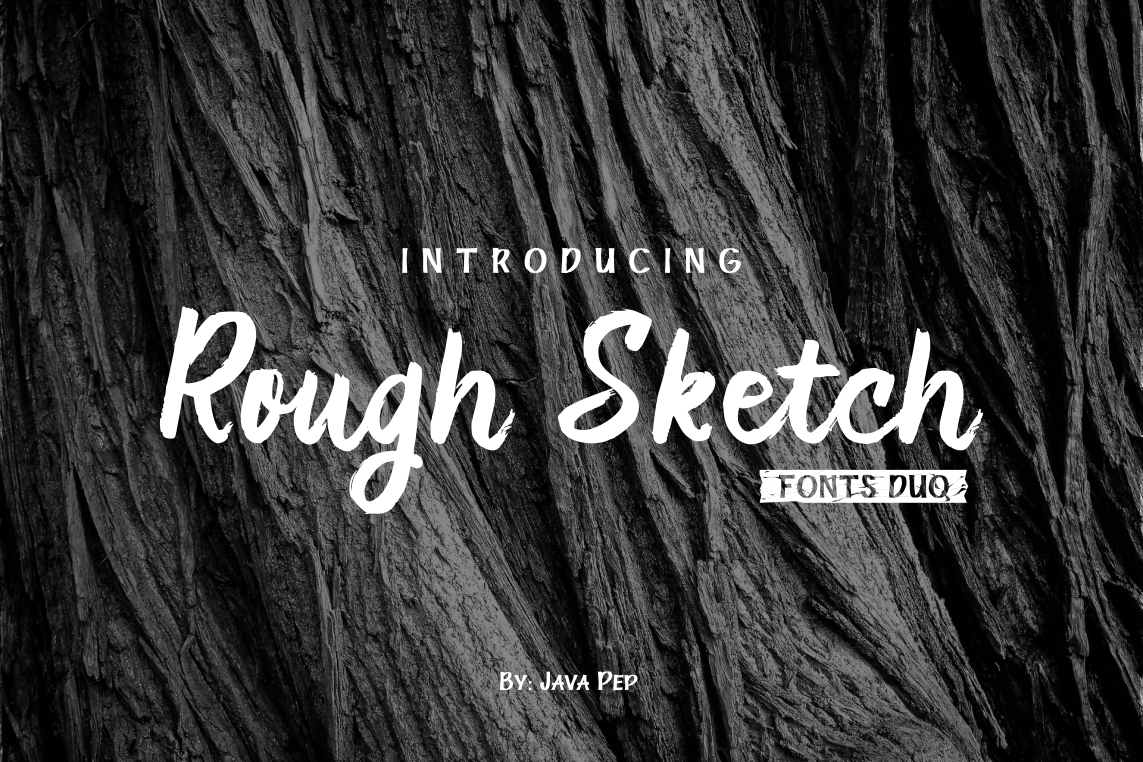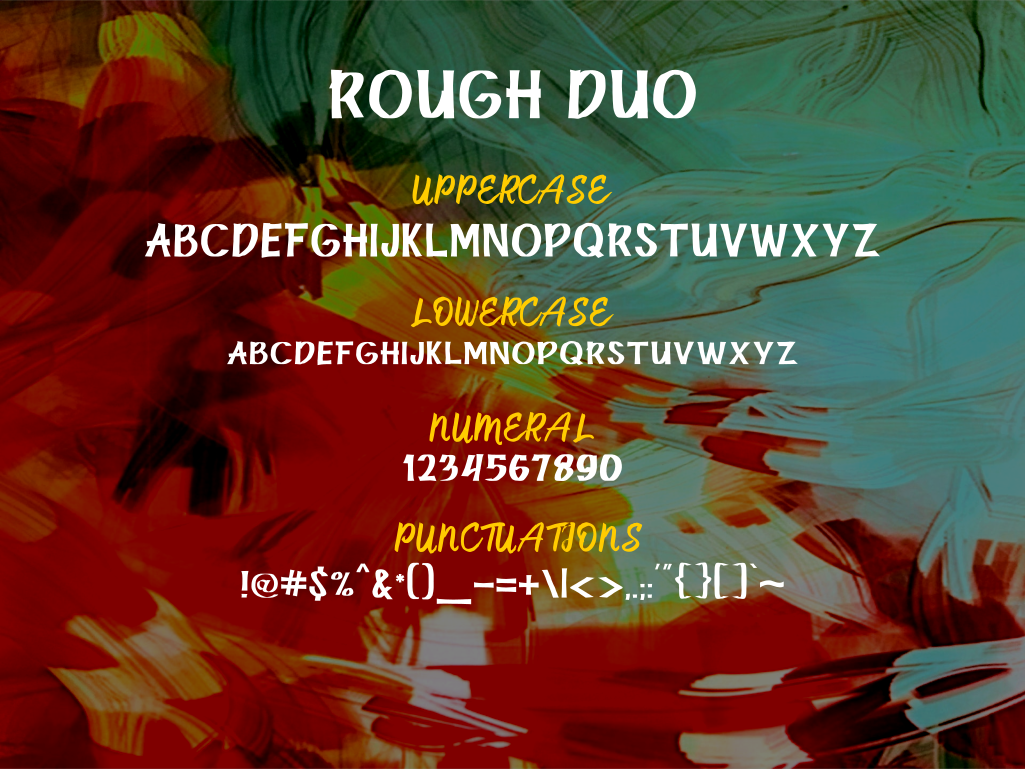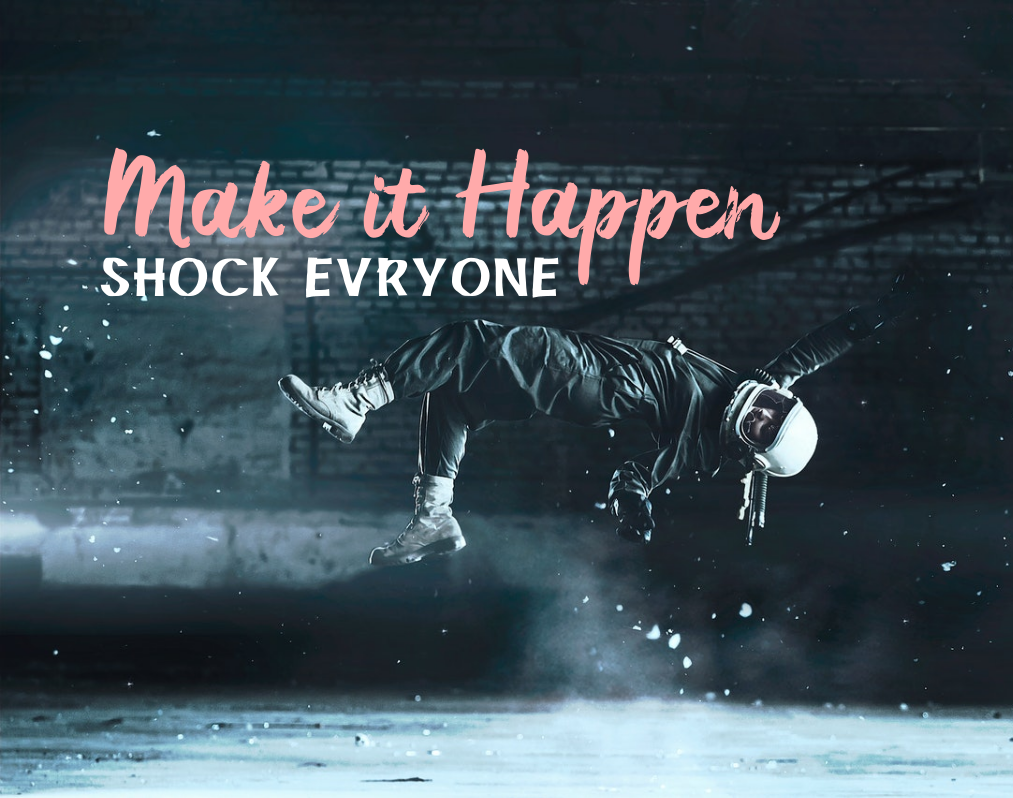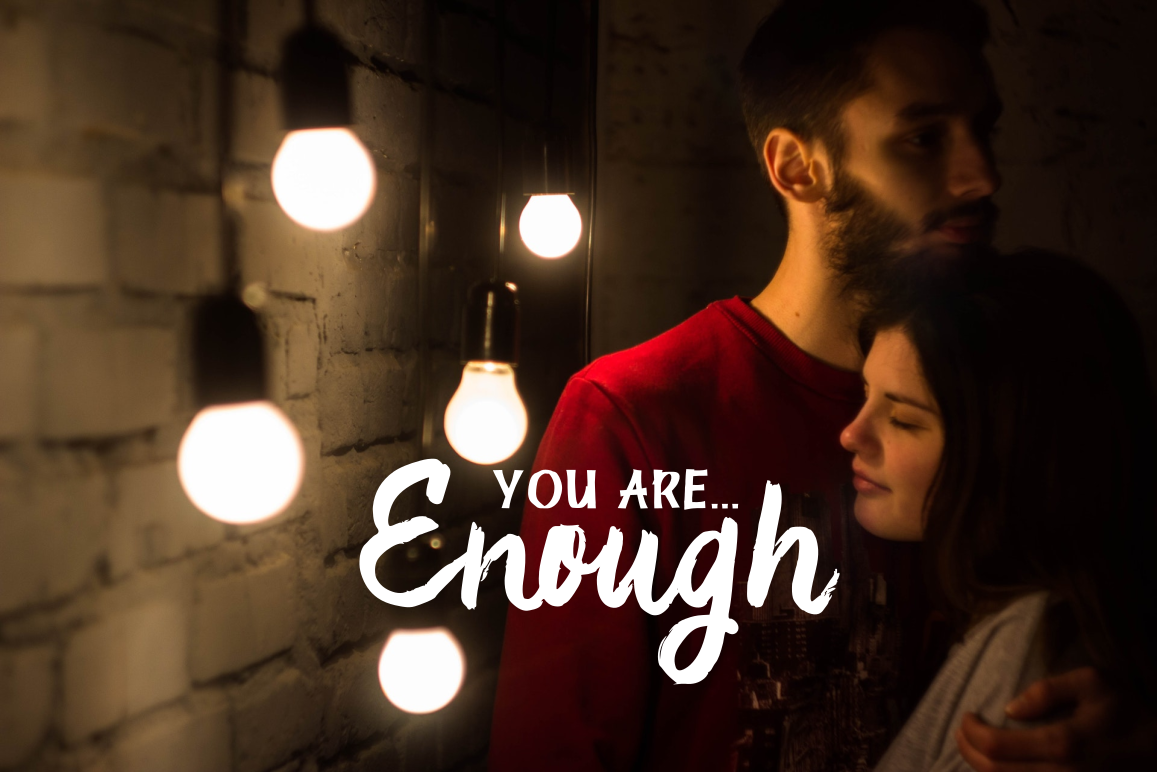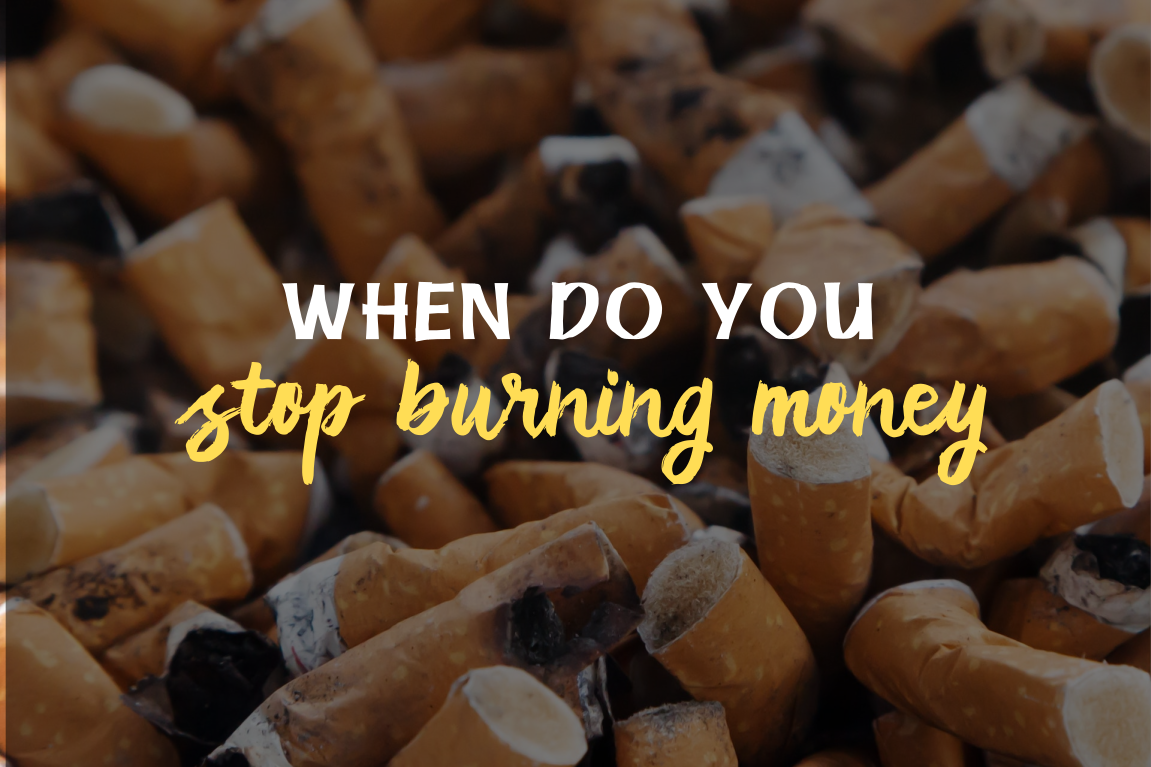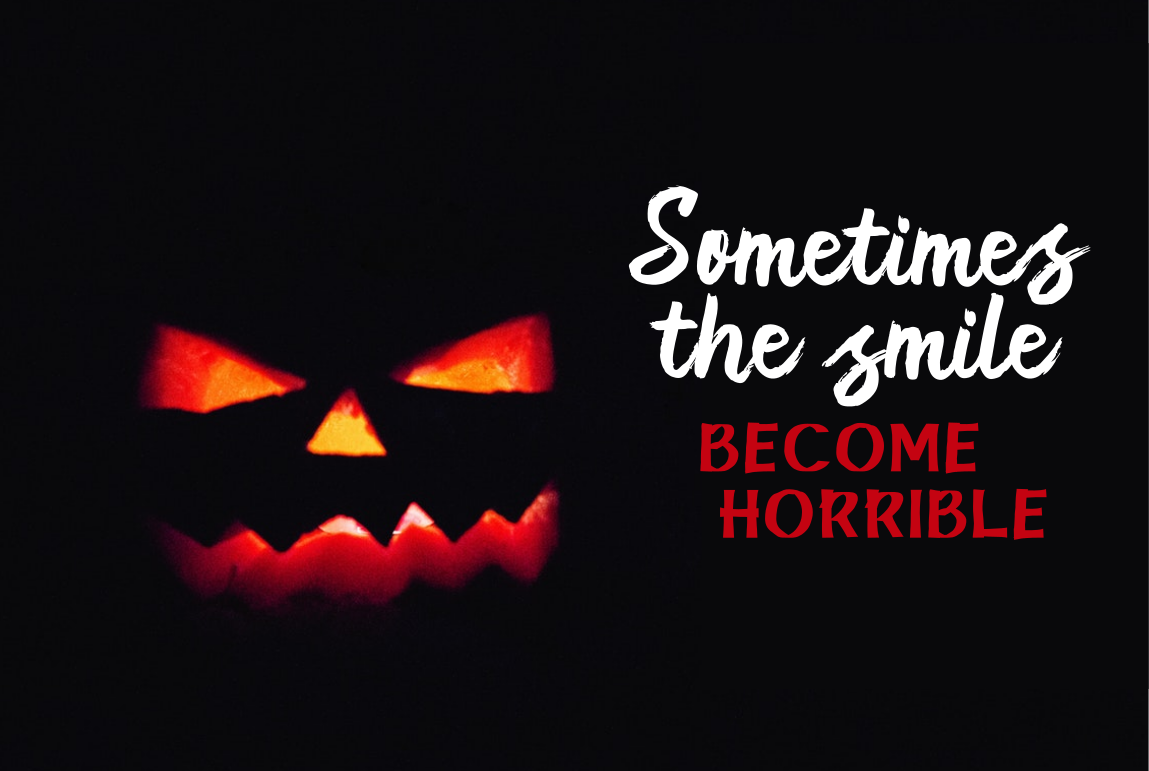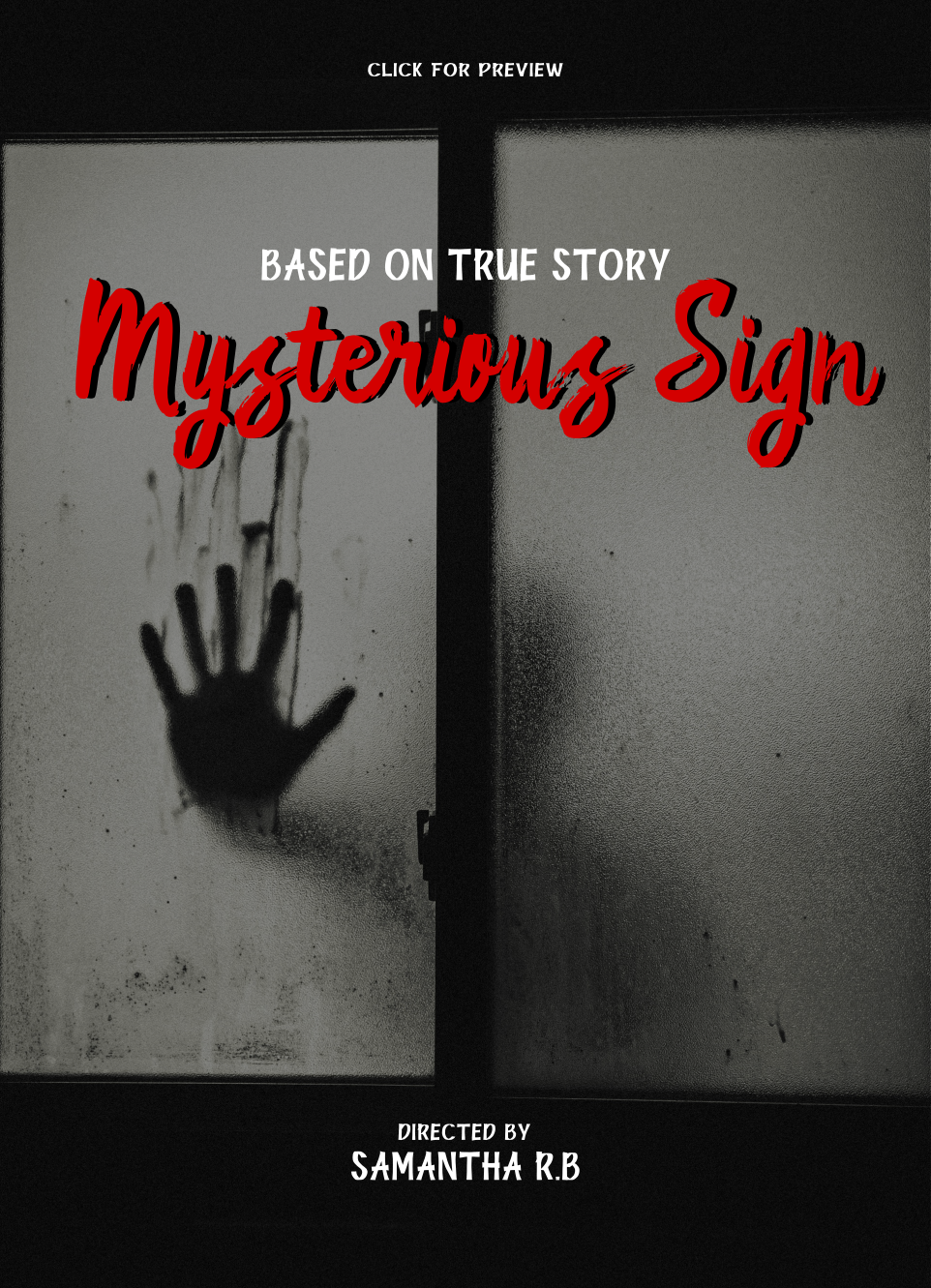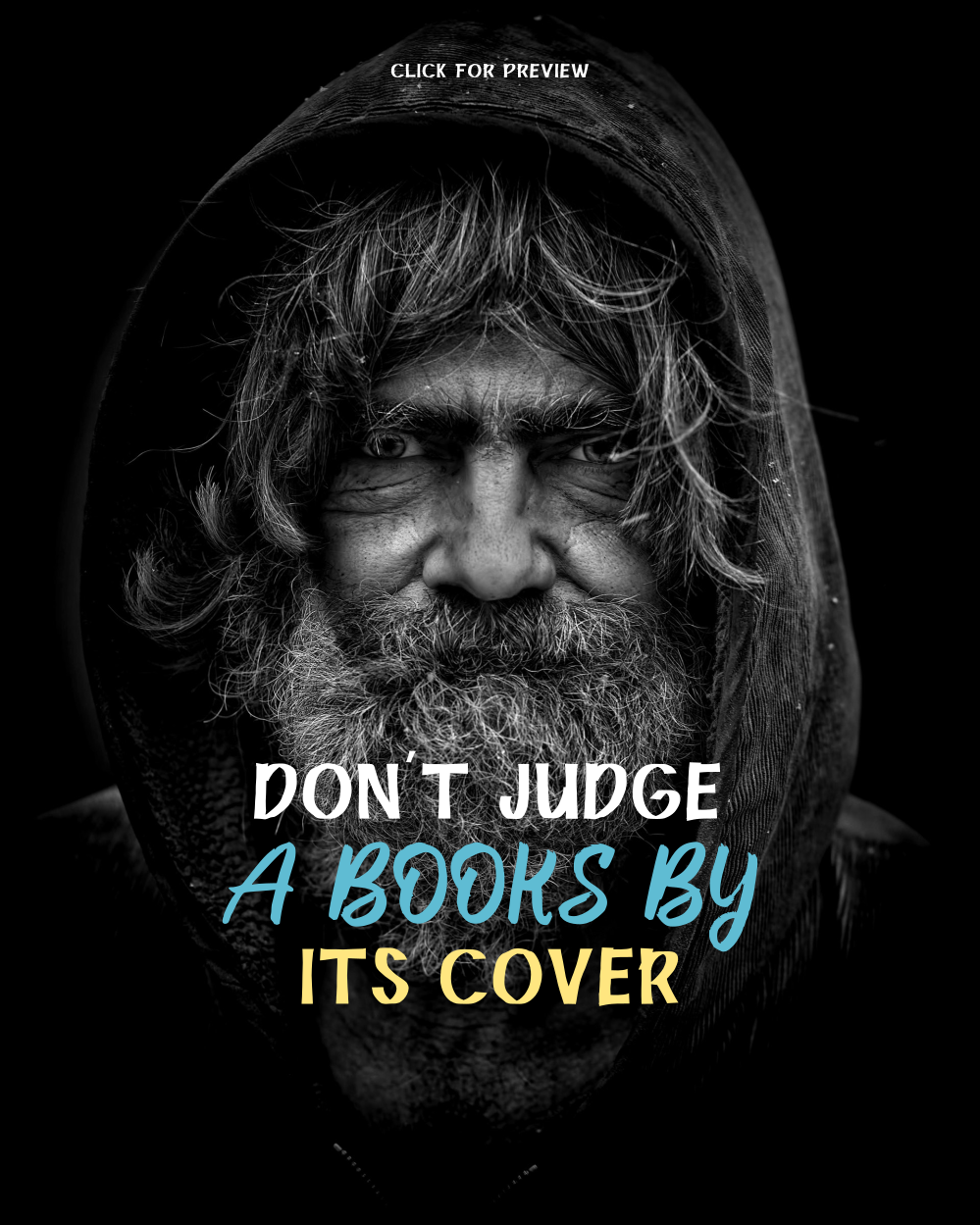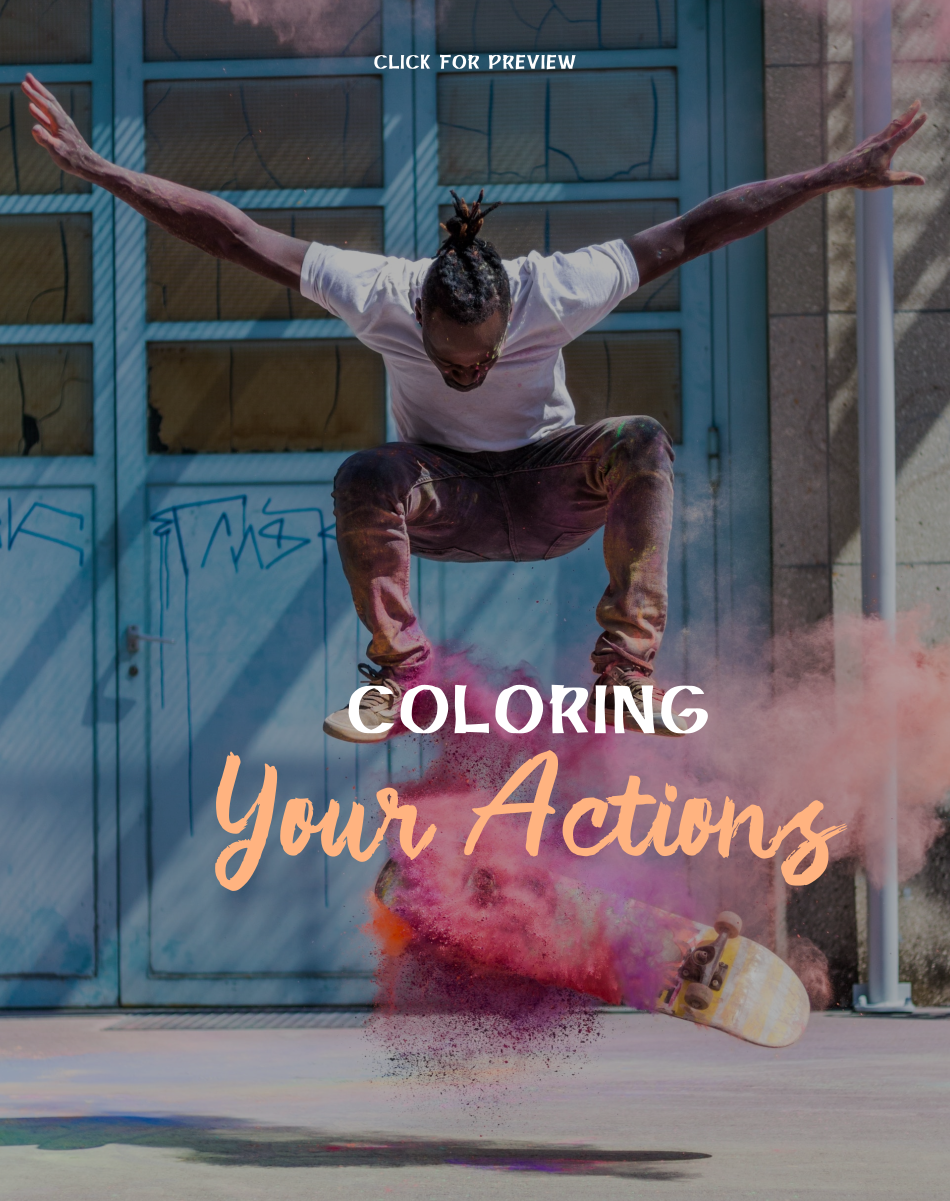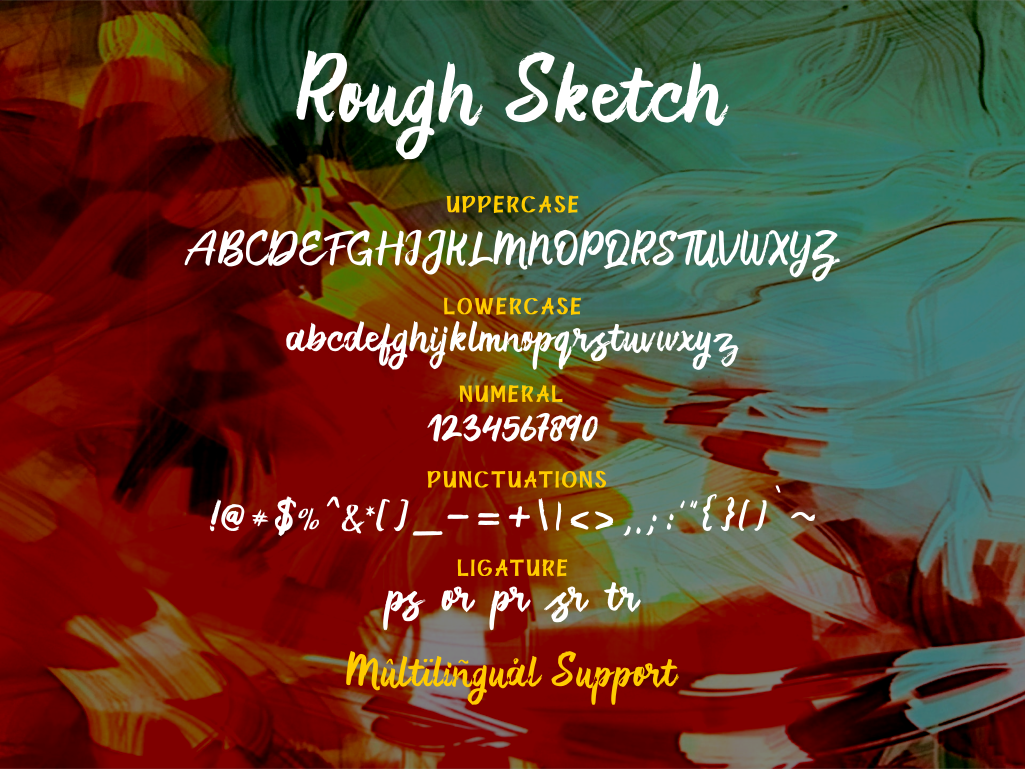
Rough Sketch Font
About Rough Sketch Font
Rough Sketch is a beautiful font duo, combining a brush stroke font with a legible and clean sans serif font for truly well-balanced and appealing designs.